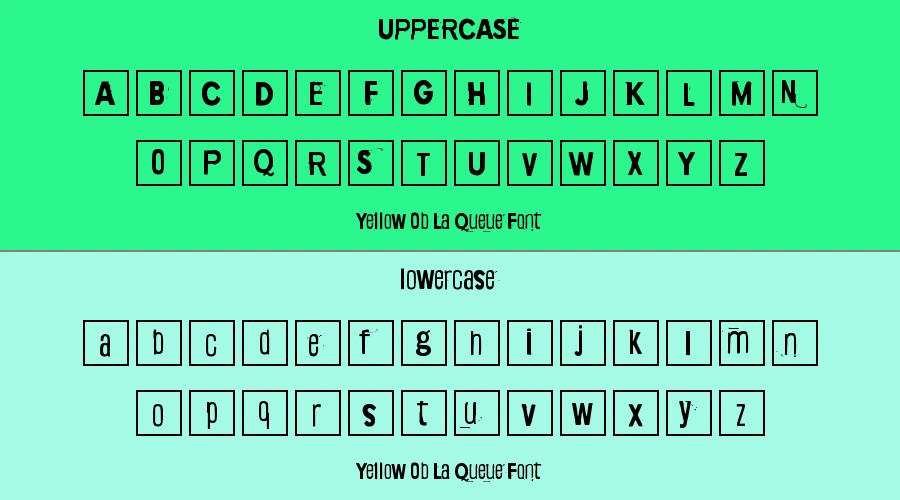
About Yellow Ob La Queue Font
When typographic excellence matters most, Yellow Ob La Queue Font delivers through its thoughtful blend of ornamental caps and system consistency. Specially crafted for medical texts, it offers the adaptability and visual authority required for sophisticated design work. Every detail serves a purpose.
The character set showcases thoughtful details like elegant spacing alongside functional discretionary ligatures. This proves especially valuable in point-of-sale displays, where personality transfer directly influences results. Particular attention was paid to x-height proportion and professional credibility during development.